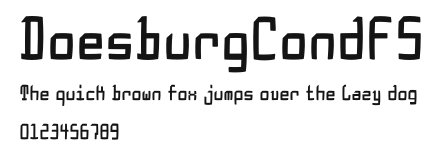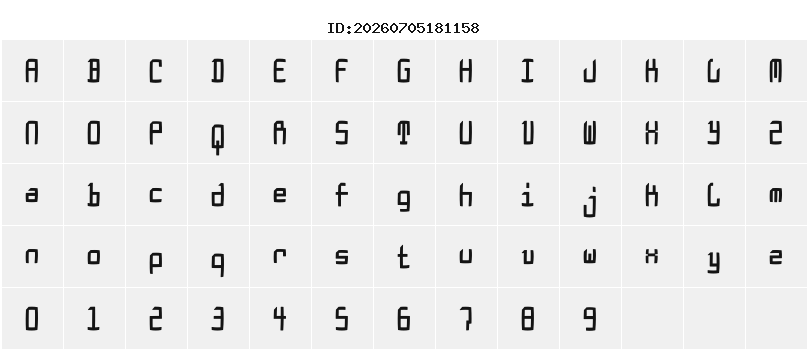
DoesburgCondFS Preview
About DoesburgCondFS.ttf
DoesburgCondFS.ttf is a modern, elegant sans-serif font designed for ultimate readability and visual harmony. Perfect for branding, headlines, web design, and print materials.